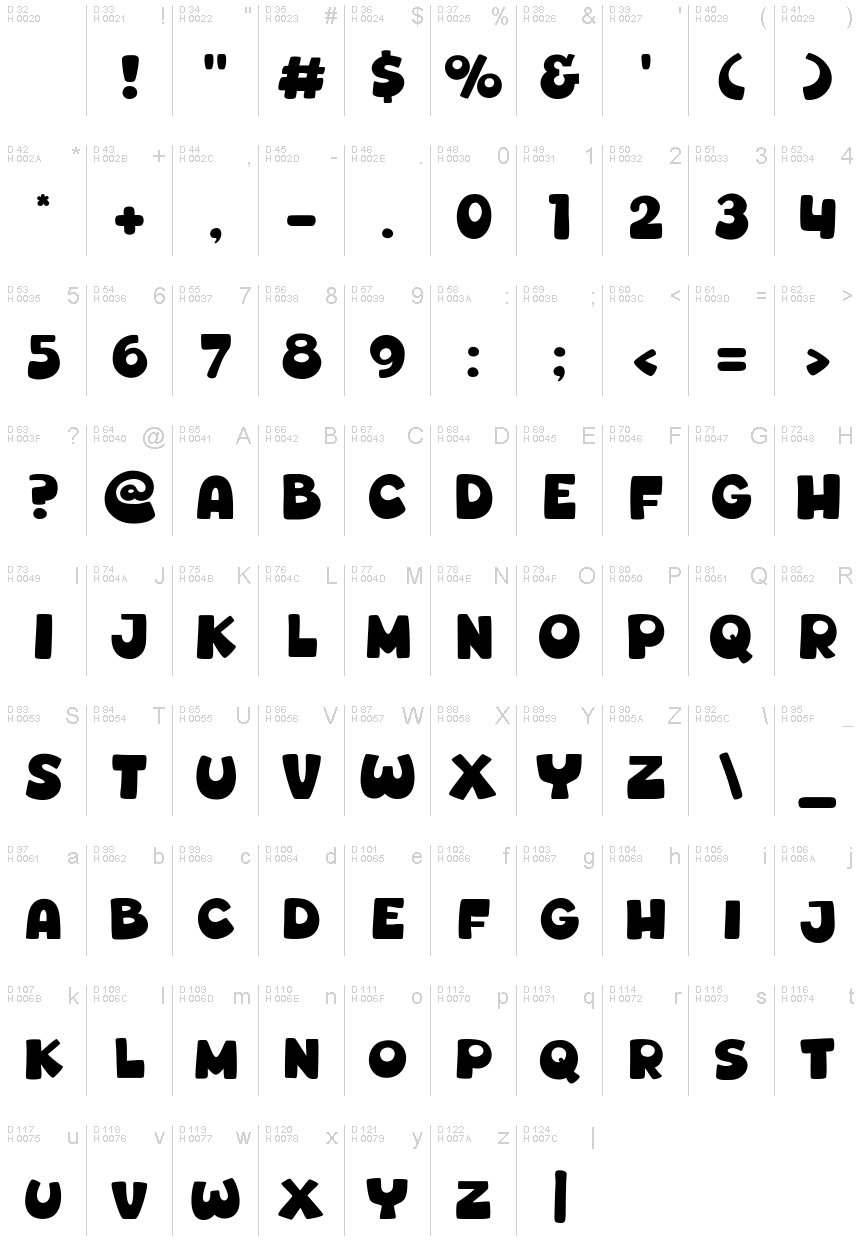
Cute Roti
Cute Roti font, crafted by Khurasan, is a bold display font with a delightful cartoon style. Its playful, rounded shapes evoke a sense of whimsy and fun, making it perfect for designs that need a touch of humor or lightheartedness. The exaggerated forms create an eye-catching effect ideal for headlines, children's books, posters, and playful branding projects.